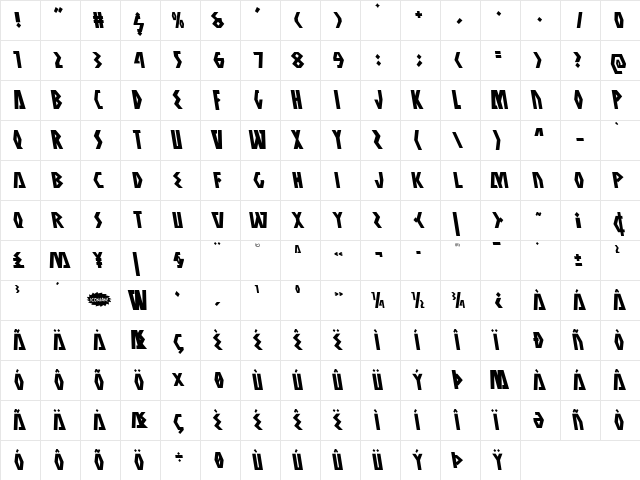
Antikythera Leftalic Italic
Design Context for Antikythera Leftalic Typeface
Antikythera Leftalic is a composed and adaptable typeface that performs quietly and consistently across a wide range of design contexts. The dynamic lean of this cut emphasises speed and emphasis in any layout.
Pro Tip: Try Antikythera Leftalic for annotation and caption copy alongside an upright companion — the contrast in angle creates a dynamic but ordered typographic system.